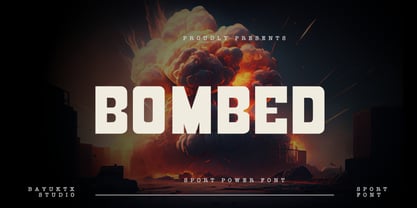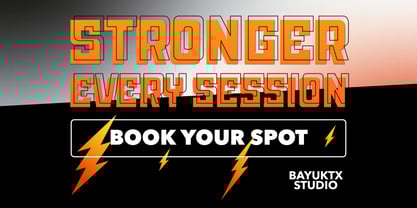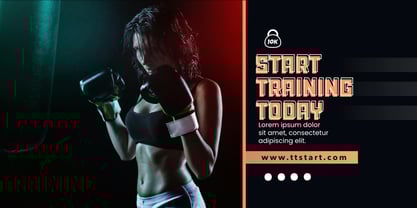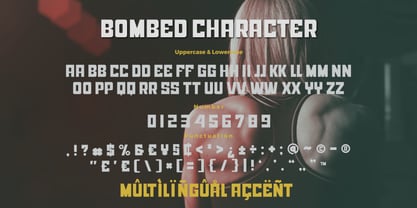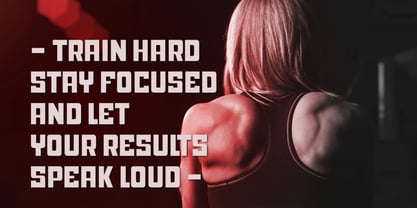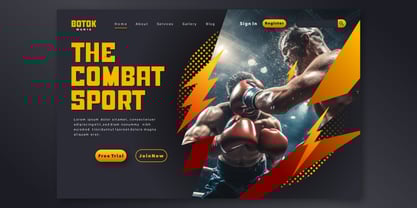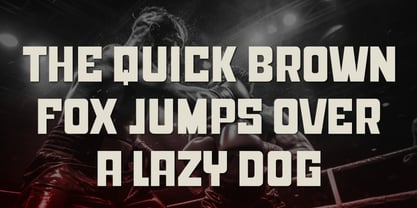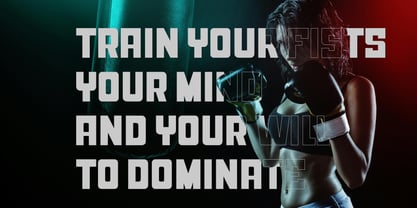
Bombed Sport
by Bayuktx
The Bombed Sport Font Family was designed by Bayu Aji Fais Mursid and published by Bayuktx. Bombed Sport contains 1 styles. More about this family
Bombed Sport Power Font captures the fierce energy and unstoppable strength of athletic design. Built for impact and performance, this typeface embodies power, precision, and motion — perfect for projects that demand bold visual intensity. With its sharp edges, dynamic lines, and modern athletic aesthetic, Bombed radiates dominance and confidence. Each letter strikes with force, delivering a powerful statement for sports branding, fitness gear, or energetic typography compositions. Whether used for logos, merchandise, posters, or esport titles, this font brings the adrenaline of competition to every word — strong, fearless, and unbreakable. Key Features : * Uppercase & Lowercase * Numerals & Punctuation * Multilingual Support * PUA Encoded & OpenType Features Suitable For : * Sport & Fitness Branding * Esport Logos & Team Identity * Gym Posters & Merchandise Design * Motivational Quotes & Banners * Action Titles & Dynamic Typography With Bombed Sport Power Font, every design hits hard — fueled by strength, speed, and confidence.